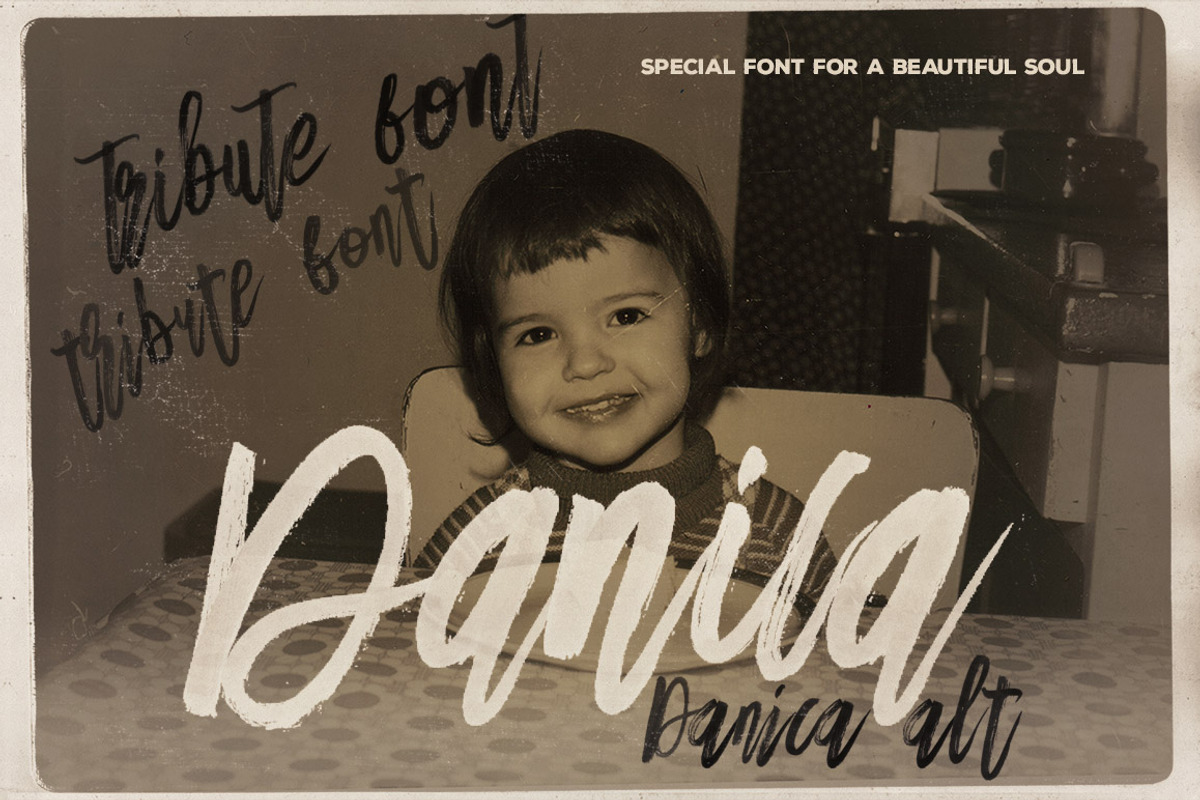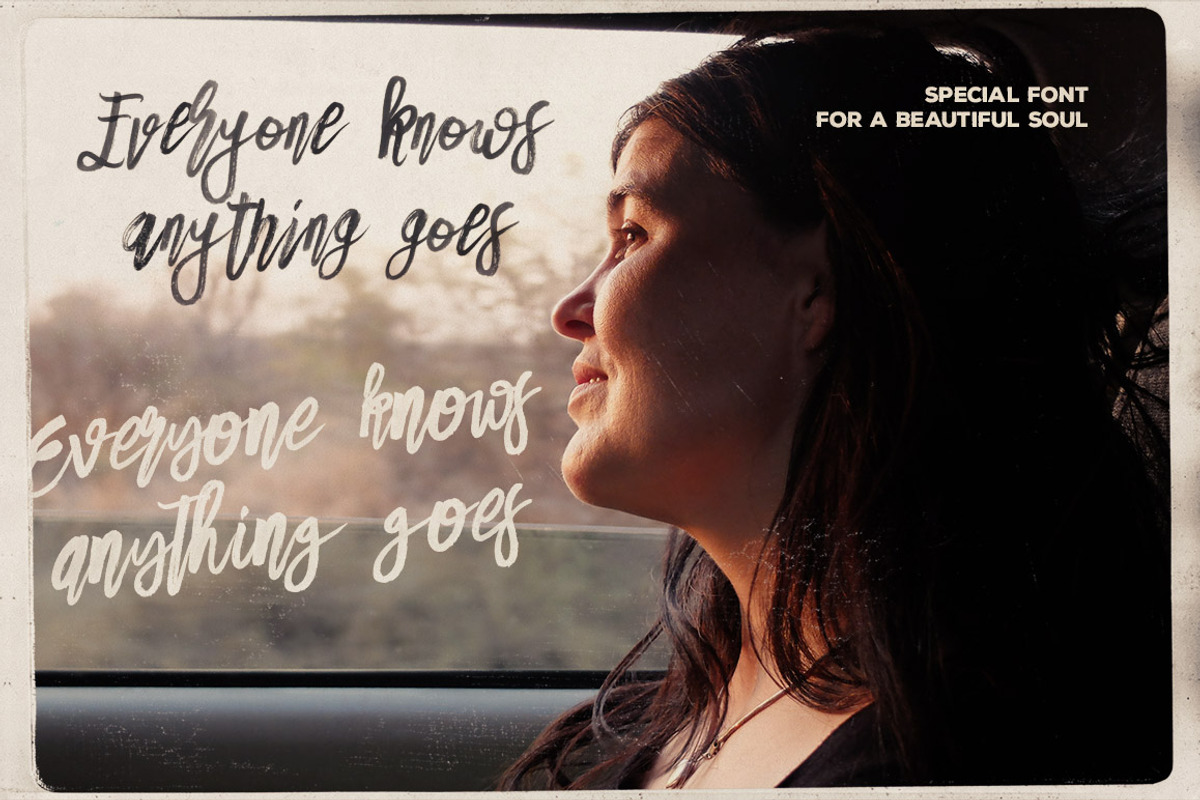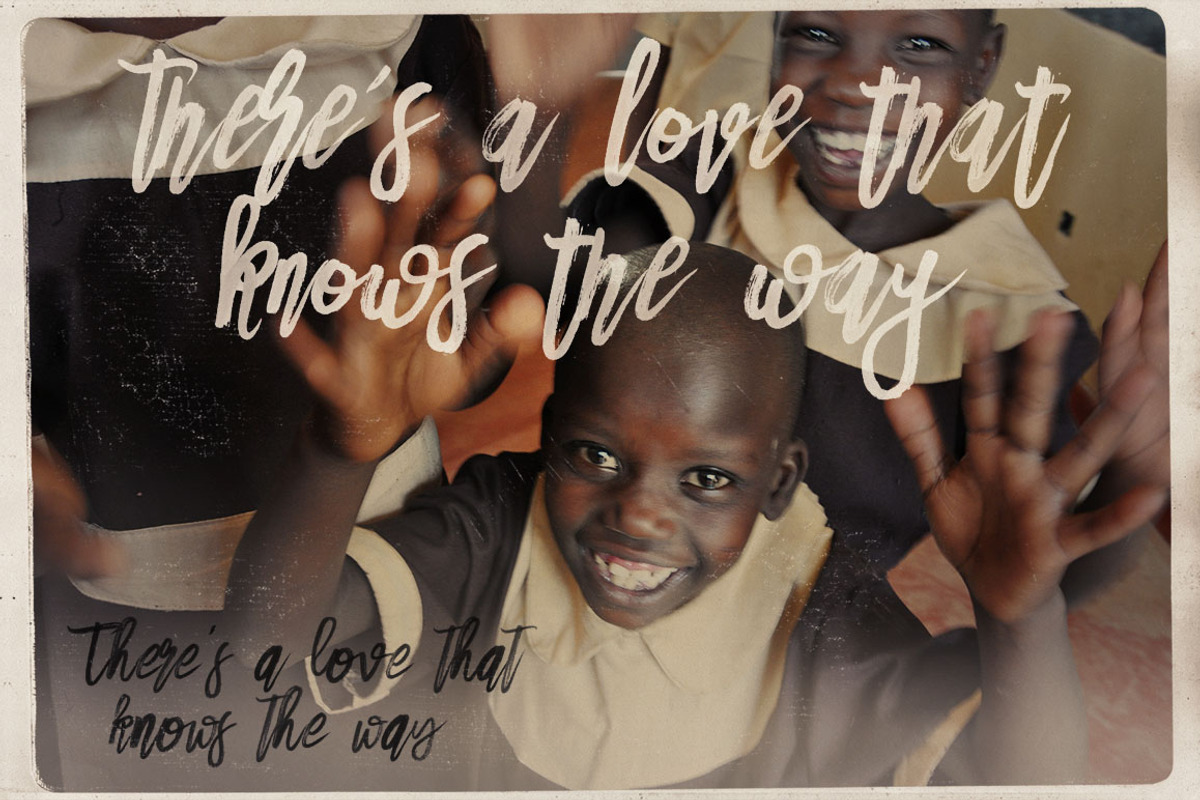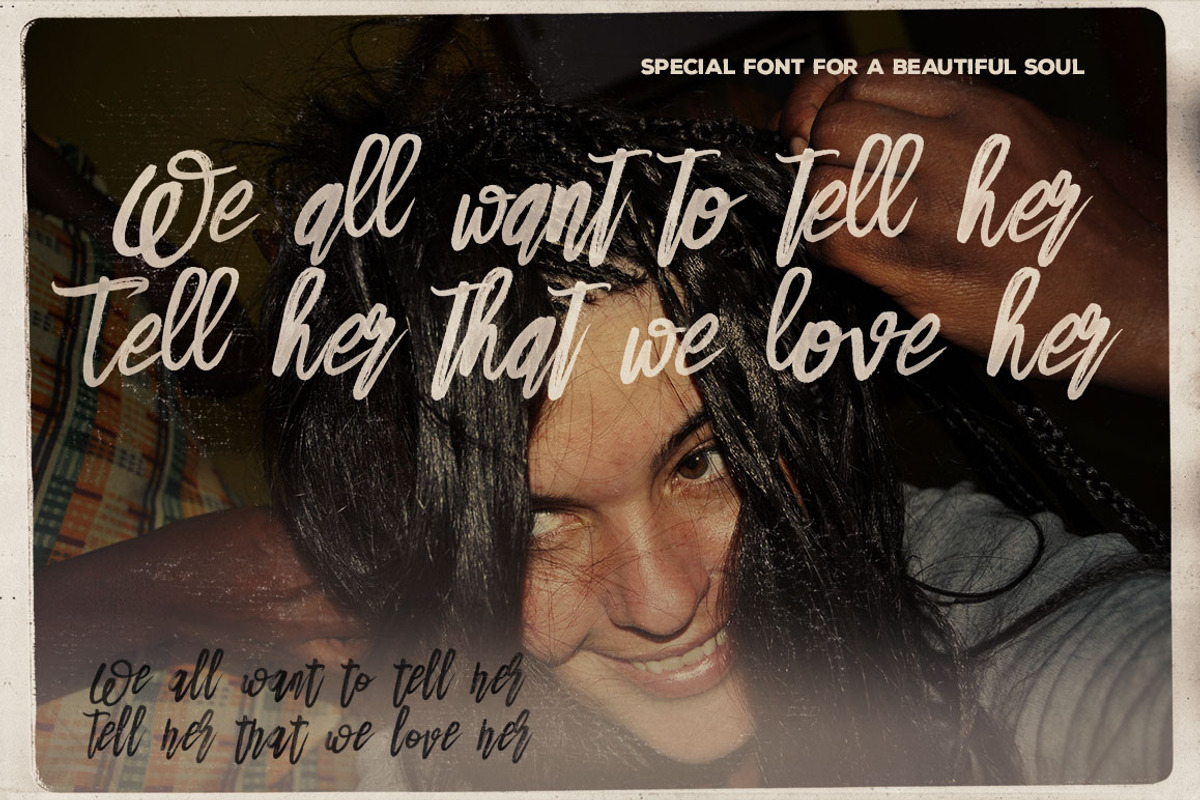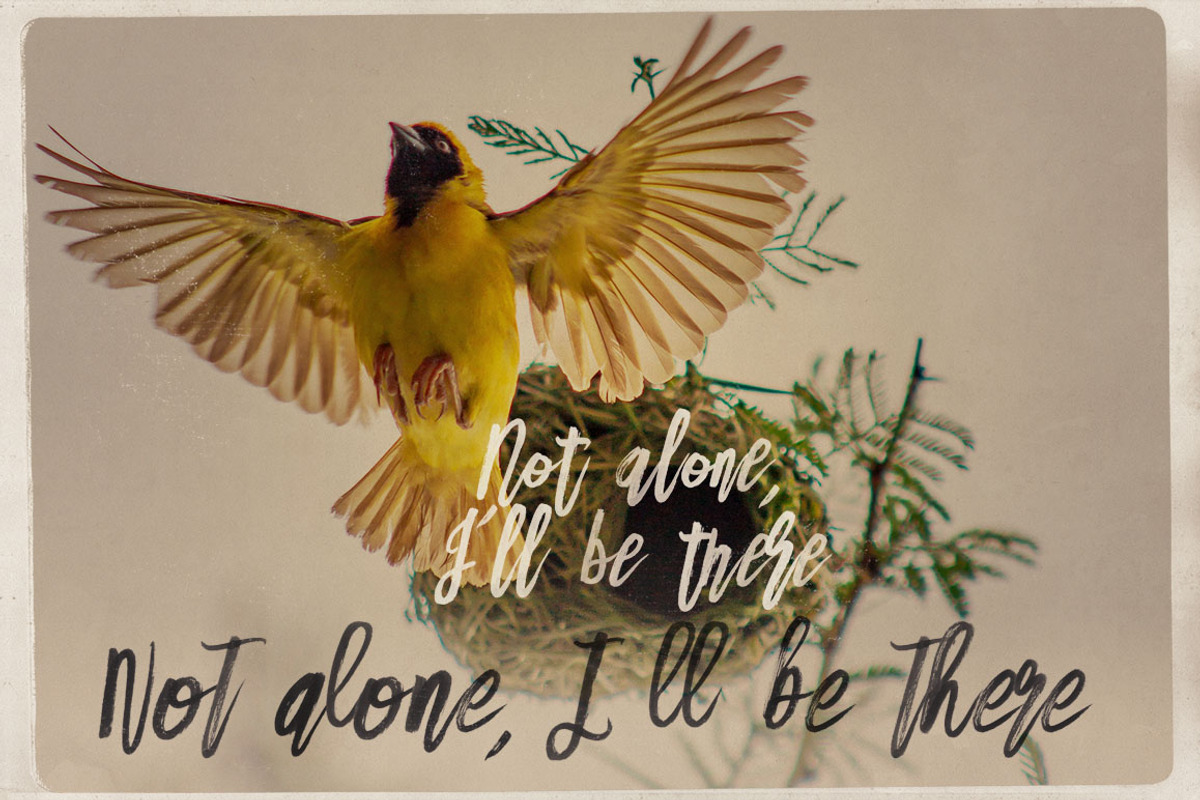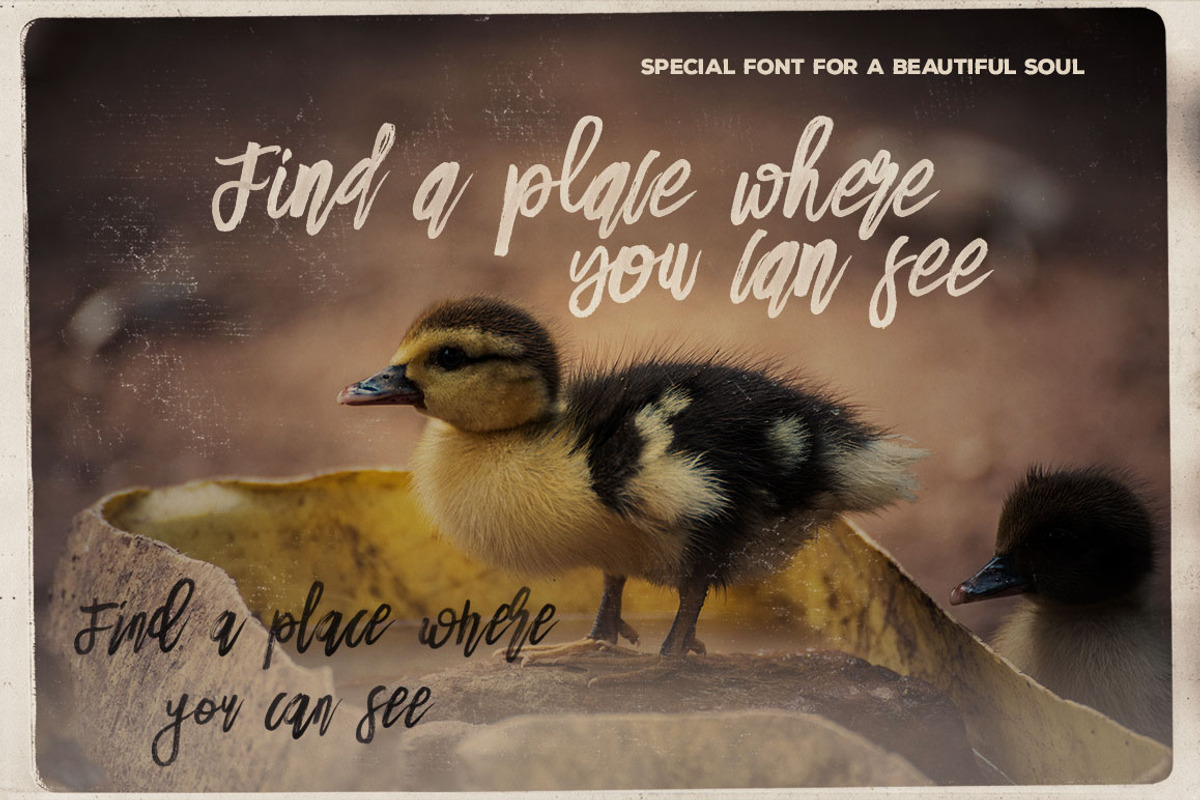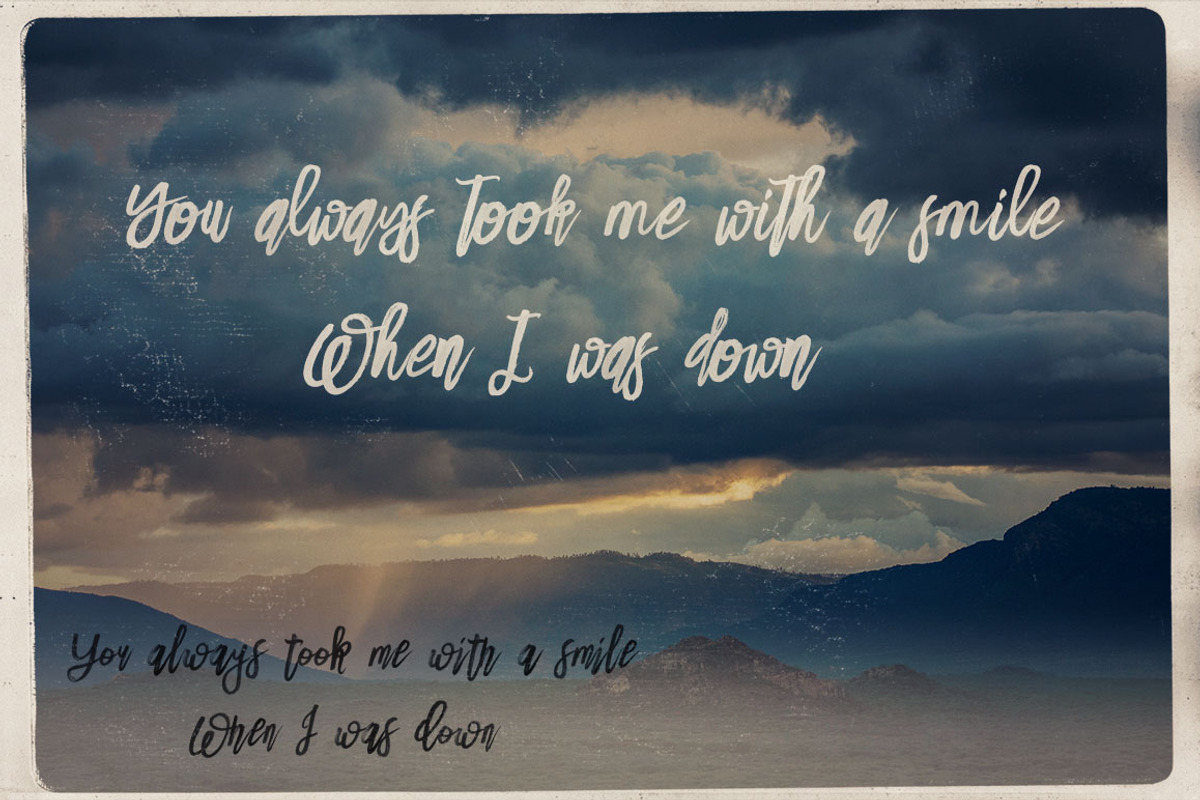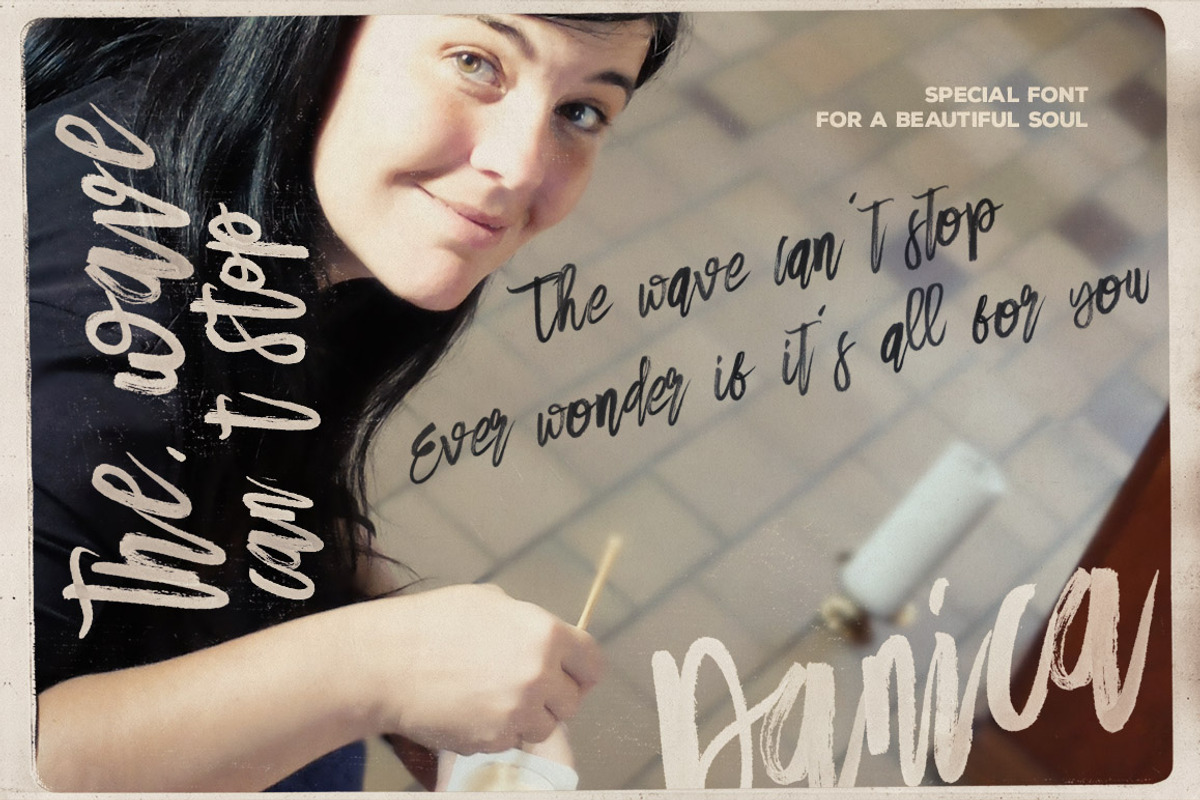
Danica Tribute Brush & SVG Font
This font is really special for me…it’s a special font for my only sister Danica – for a beautiful soul :/
After I lost my only sister Danica on March 10, 2019 in Ethiopia Airlines plane crash is this font dedicated to HER. Lot of CruzineDesign items are also her work – she was an amazing artist and photographer + christian non-government organisation project manager. Take a look at some of Danica’s photos:
Brush or grunge style script display font for your new projects. Great for grunge or artistic projects!